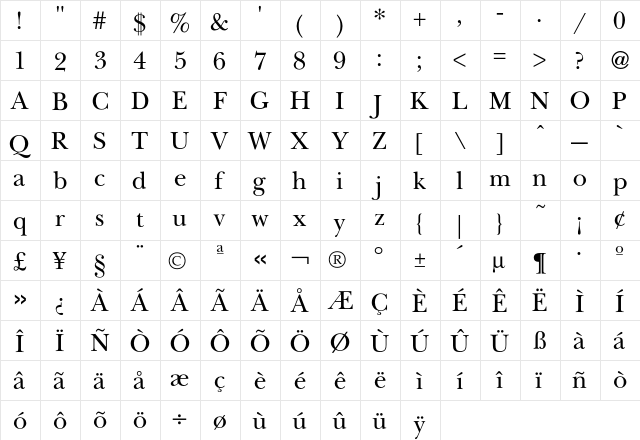
New BaskervilleRoman Font Preview
New BaskervilleRoman
New BaskervilleRoman Font Details
| Style | BaskervilleRoman |
Design Context for New Typeface
New is a composed and adaptable typeface that performs quietly and consistently across a wide range of design contexts.